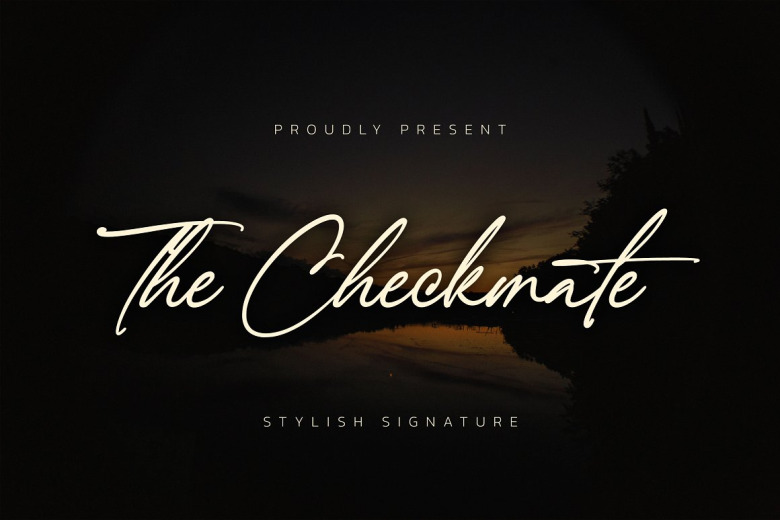
The Checkmate Font
The Checkmate Handwritten Font is another fine script, informal and written with carelessness. Sign is made in paper form letters. Then scanned and converted and given further detail into a vector. Checkmate is best suited for Homeware design, Branding, Logo design, Quote designing, Product Packaging, Photo designing, Watermark.
The Checkmate Handwritten Script Font